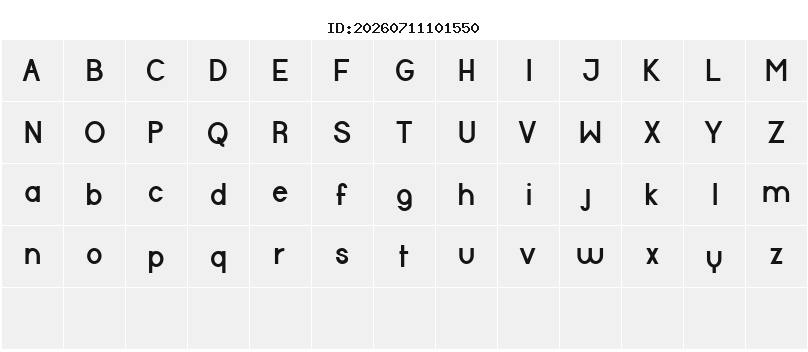
Halfmoon Preview
• Font Name: Halfmoon
• Full Font Name: Halfmoon Bold
• Designer: Katiuscia Mari
About Halfmoon.ttf
Halfmoon.ttf is a modern, elegant sans-serif font designed for ultimate readability and visual harmony. Perfect for branding, headlines, web design, and print materials.